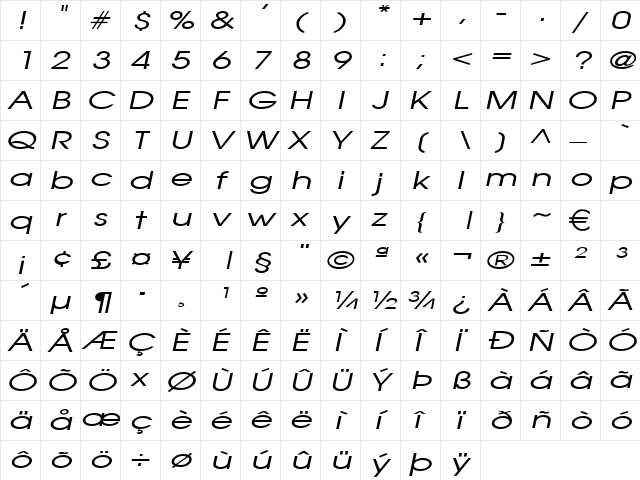
AtillaExtended Italic
Design Context for AtillaExtended Typeface
AtillaExtended takes a measured approach to typography — its balanced proportions and neutral character make it a reliable workhorse for both digital and print work. The dynamic lean of this cut emphasises speed and emphasis in any layout.
Pro Tip: Try AtillaExtended for annotation and caption copy alongside an upright companion — the contrast in angle creates a dynamic but ordered typographic system.